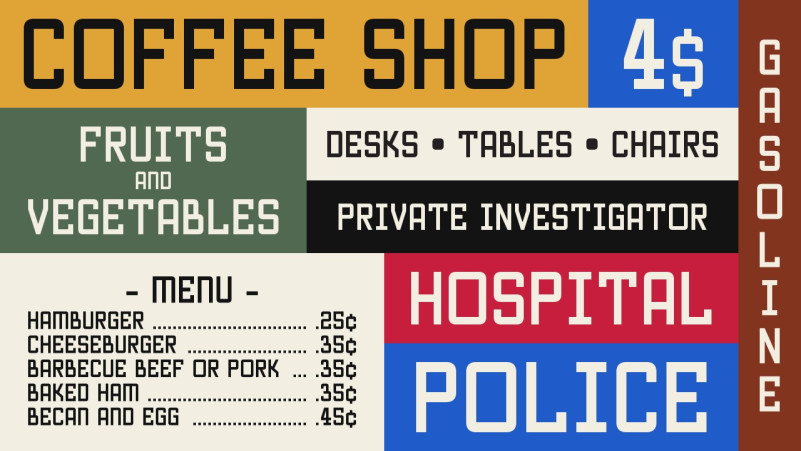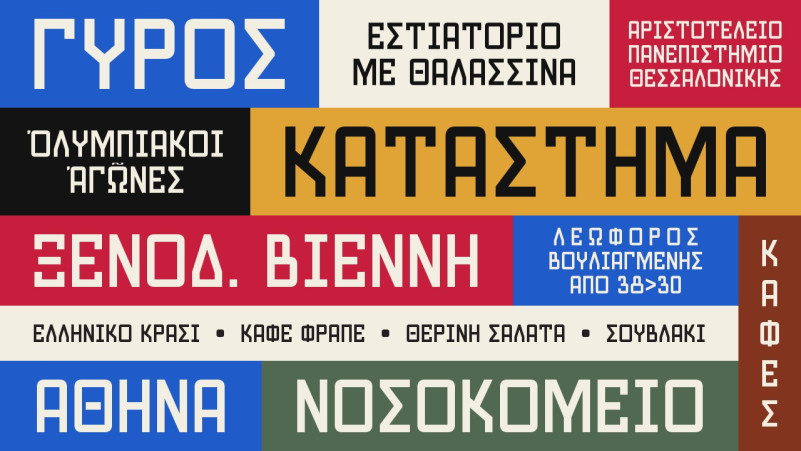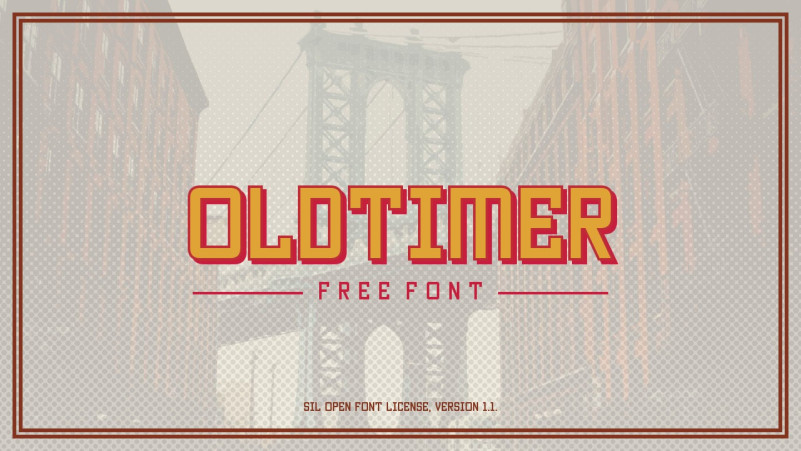
Oldtimer Font
Oldtimer Font, This bundle features strong, confident and powerful typefaces designed to work great with sports logos, club branding, apparel applications, labels and more.